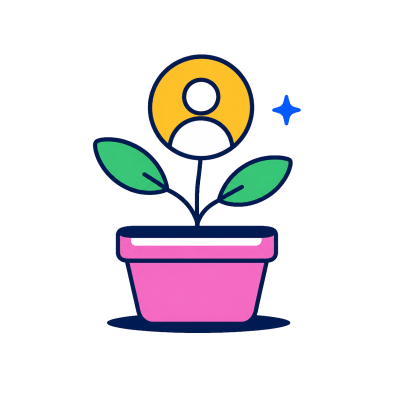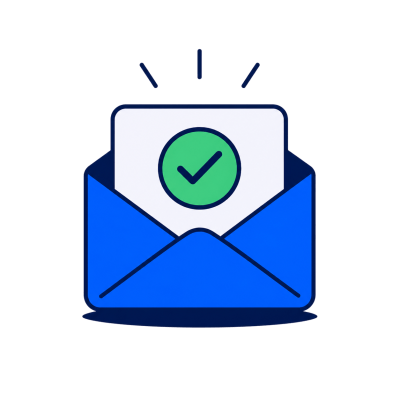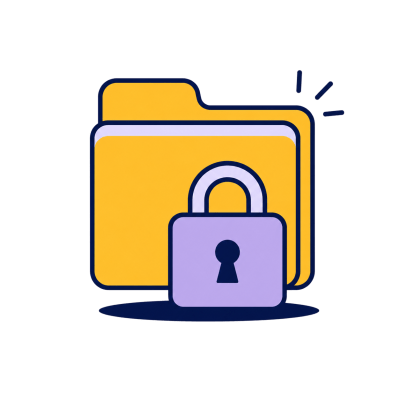
Malwarebytes
by Redscout
Malwarebytes updated their monogram by removing asymmetry for a more centered and alignable form. The wordmark, set in Right Grotesk, uses ink traps and condensed proportions for a tech-appropriate vibe, though consistency in ink trap application varies. The new identity introduces comic-inspired illustrations and a more dynamic color palette, creating an engaging, less 'doomsday-ish' aesthetic that feels more empowering.